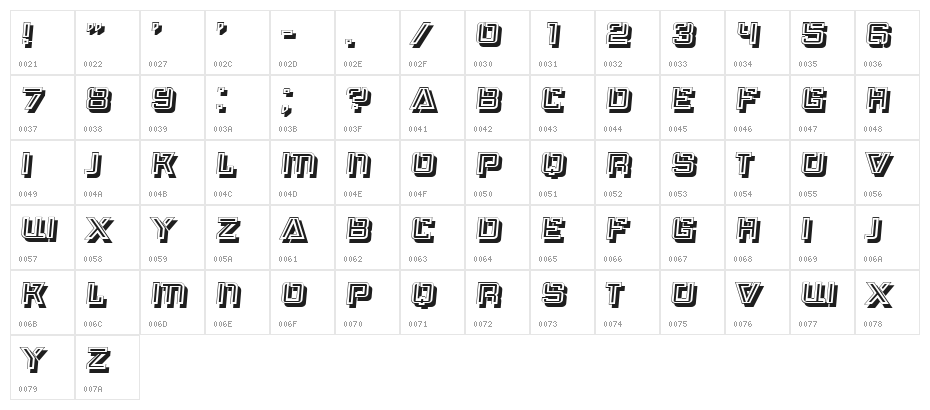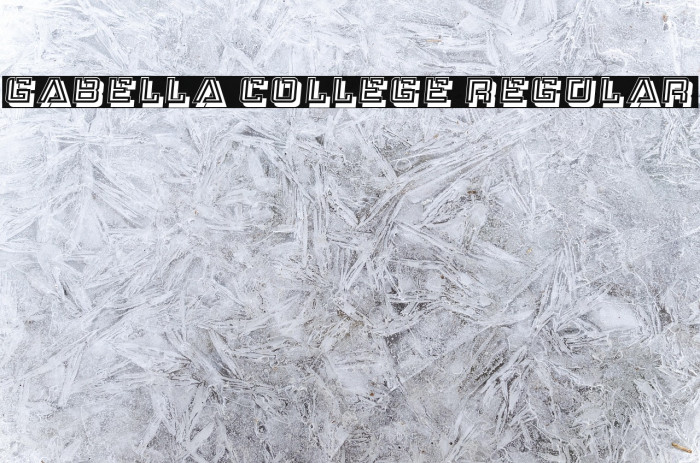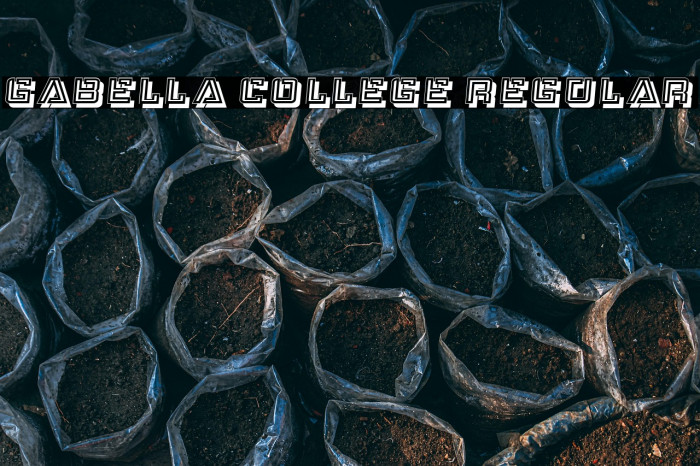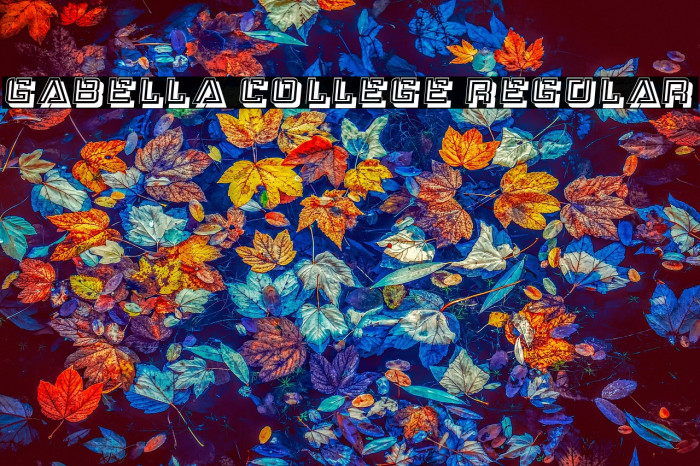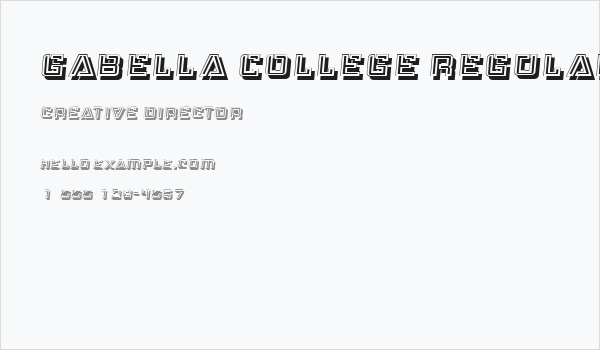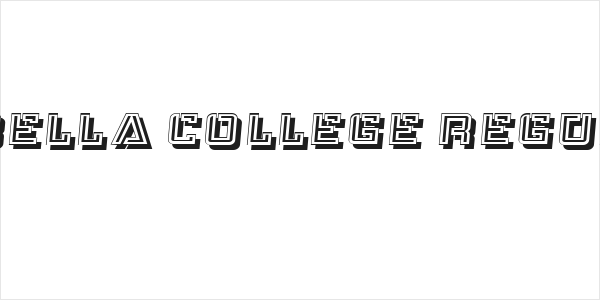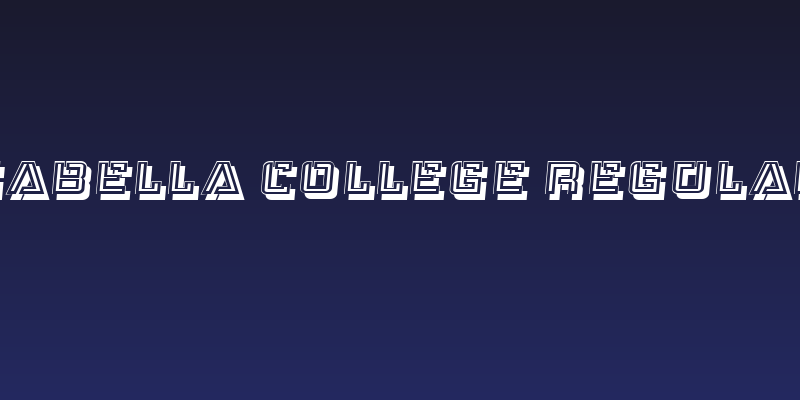
Gabella College Regular Font
Gabella College Regular Description
This font features a bold, dynamic style with a three-dimensional effect that gives each character a sense of depth and movement. The letters are uppercase and lowercase, with numerals and a selection of special characters. The design incorporates sharp angles and clean lines, creating a futuristic and edgy appearance. The shadowing effect adds a layer of complexity, making it stand out in any design. This font is ideal for projects that require a strong visual impact, such as posters, logos, and headlines.
| Proposed Projects | Ideal for posters, logos, headlines, and any design requiring a strong visual impact. |